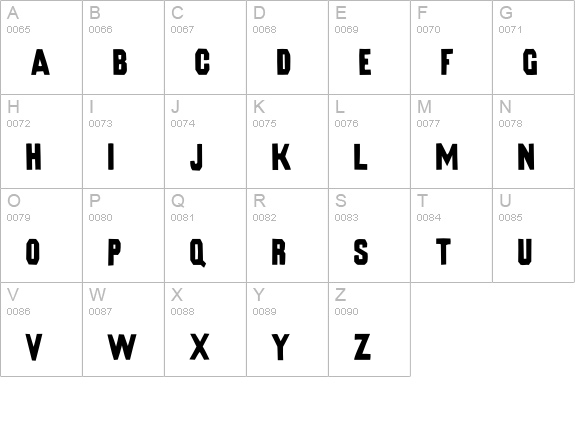
Iodine-Bold Font Details
Iodine-Bold is a strong, high-contrast variant in the Iodine typeface family \xE2\x80\x94 well suited to headlines, attention-grabbing titles, and strong calls-to-action.
Iodine-Bold is a stunning and bold font that exudes confidence and strength. With its clean lines and powerful presence, this font is perfect for making a bold statement in any design project. Whether you are designing a logo, creating eye-catching headlines, or crafting visually stunning posters, Iodine-Bold is sure to leave a lasting impression. Not only does Iodine-Bold possess an irresistible charm, but it also offers incredible versatility. Its bold and thick letterforms make it highly legible even at small sizes, ensuring that your message comes across loud and clear. The careful attention to detail in the design of this font is evident in its balanced proportions and carefully crafted curves. One of the best things about Iodine-Bold is that it is free! Yes, you read that correctly. This high-quality font is freely available for download at FontsMarket.com. Now you can add a touch of elegance and sophistication to your designs without breaking the bank. Whether you are a professional designer or a passionate hobbyist, Iodine-Bold is a must-have font in your collection. Its timeless appeal and bold character make it a valuable asset for a variety of design projects. So why wait? Head over to FontsMarket.com and download Iodine-Bold today for free. Elevate your designs with this striking font and make a lasting impression on your audience.